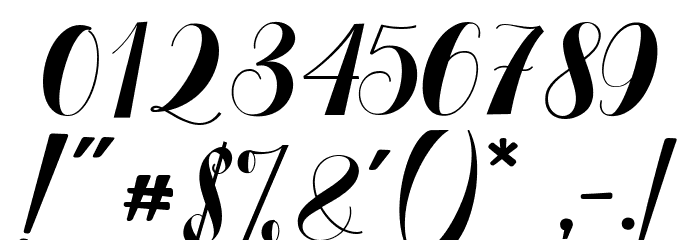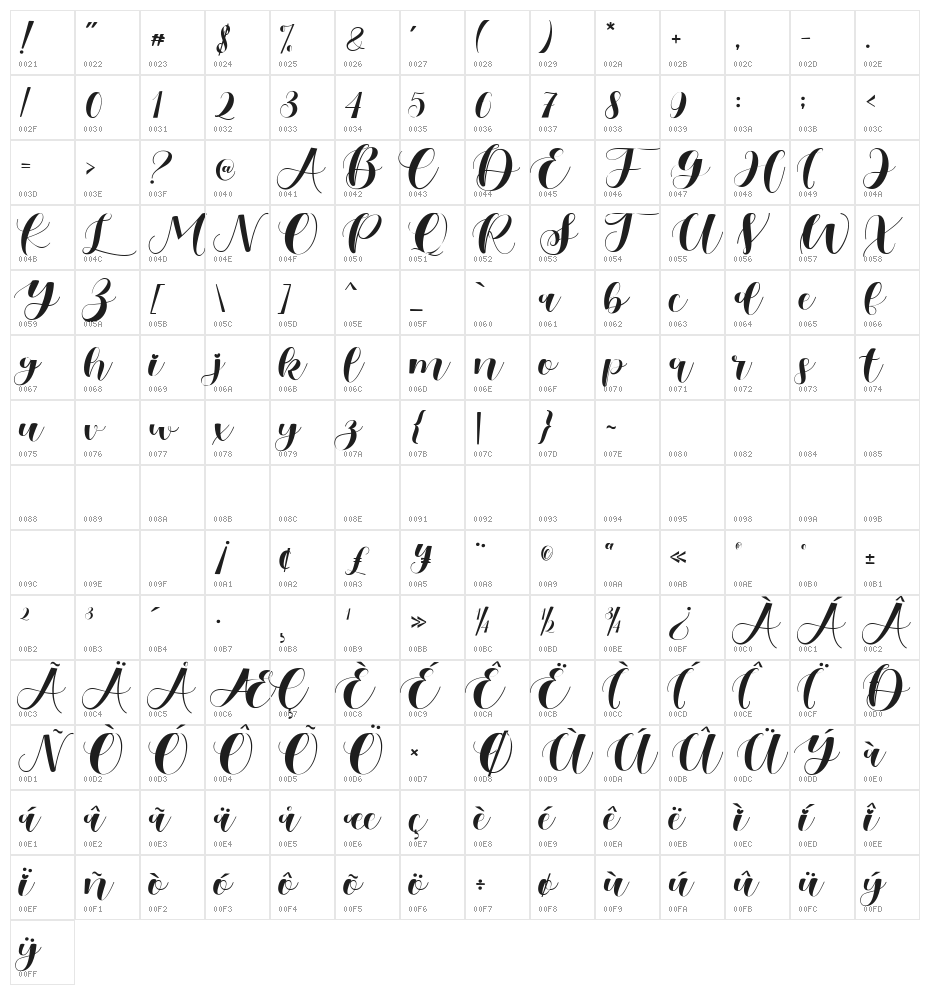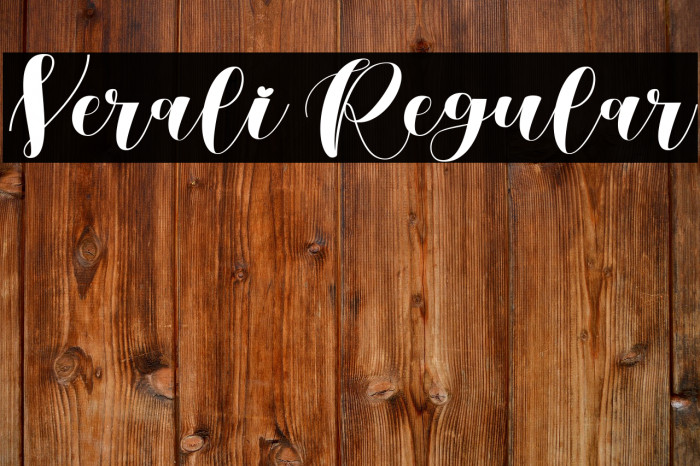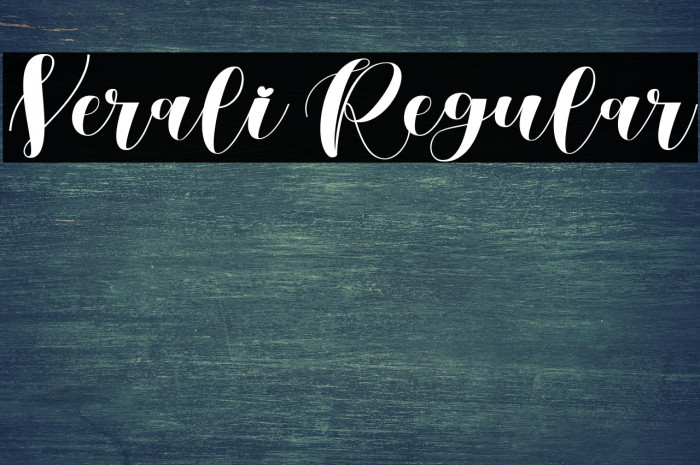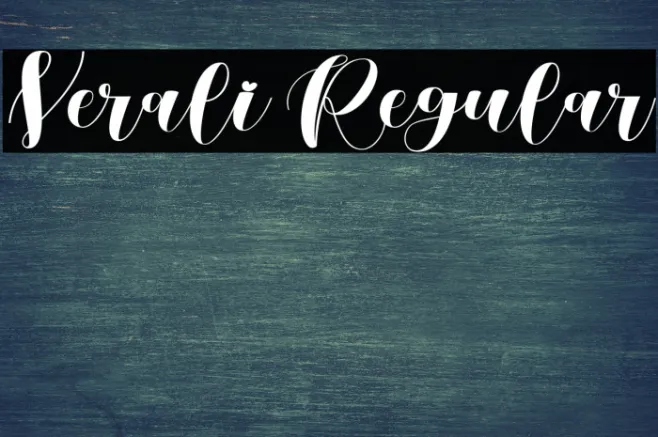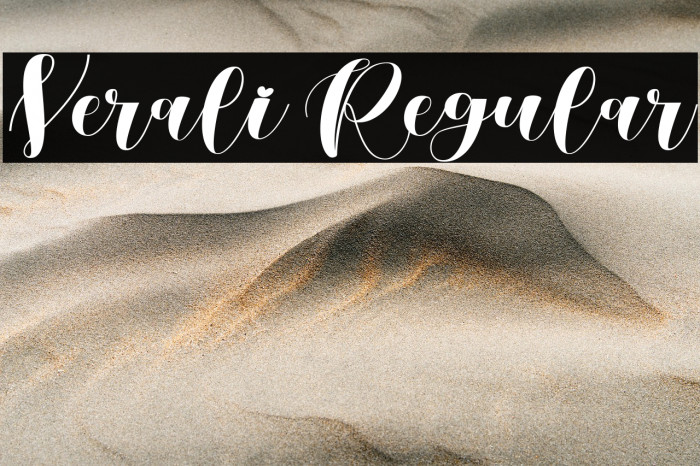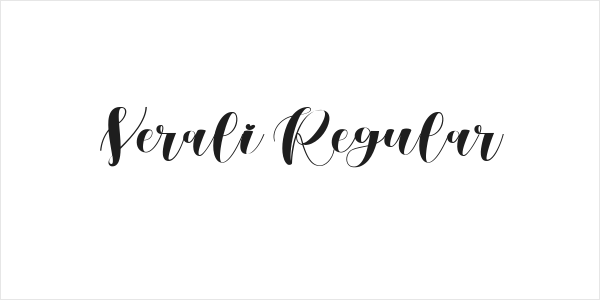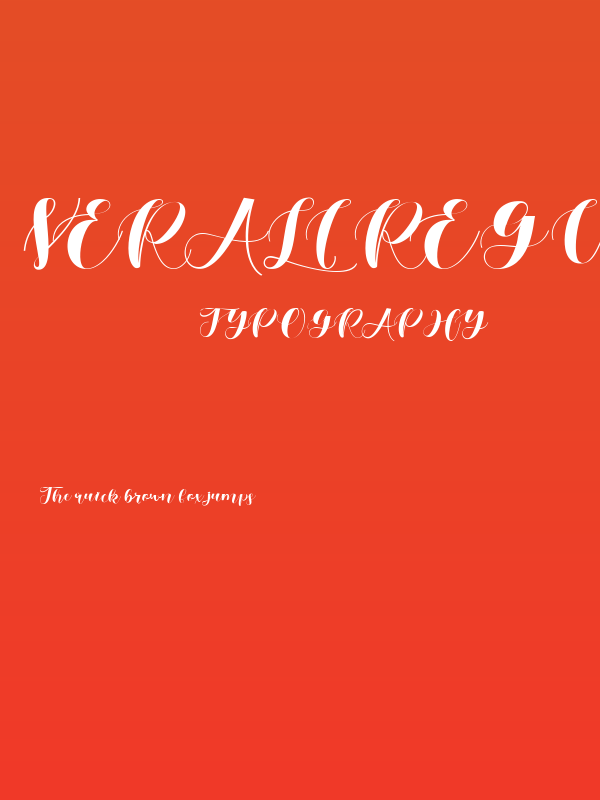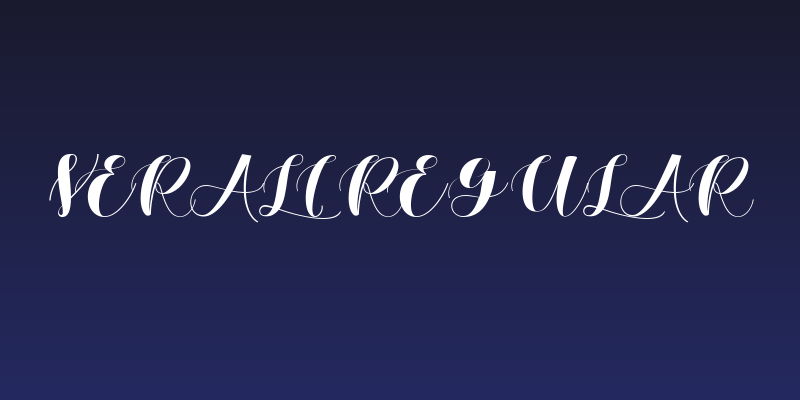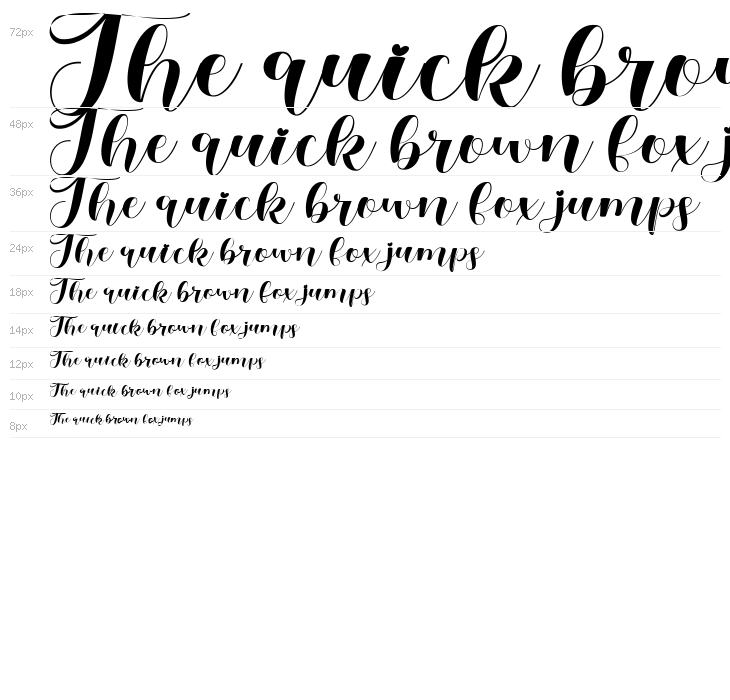
Verali Regular Font
Verali Regular Description
This elegant script font features a flowing, cursive style with high contrast between thick and thin strokes. The uppercase letters are ornate, with sweeping flourishes that add a touch of sophistication and drama. The lowercase letters maintain a consistent flow, enhancing readability while retaining a decorative flair. Numbers and special characters are designed with the same attention to detail, ensuring a cohesive look across all text elements. This font is ideal for projects that require a touch of elegance and style, such as wedding invitations, branding, and high-end product packaging.
| Use Case | Headlines, Invitations, Branding |
| Proposed Projects | Wedding invitations, luxury branding, product packaging, elegant stationery. |